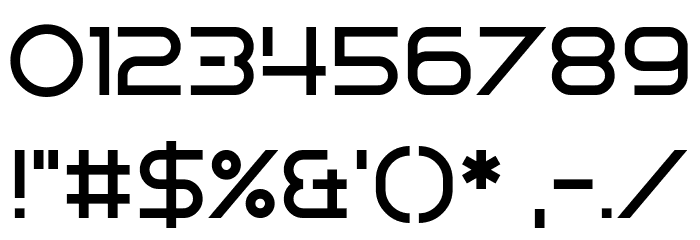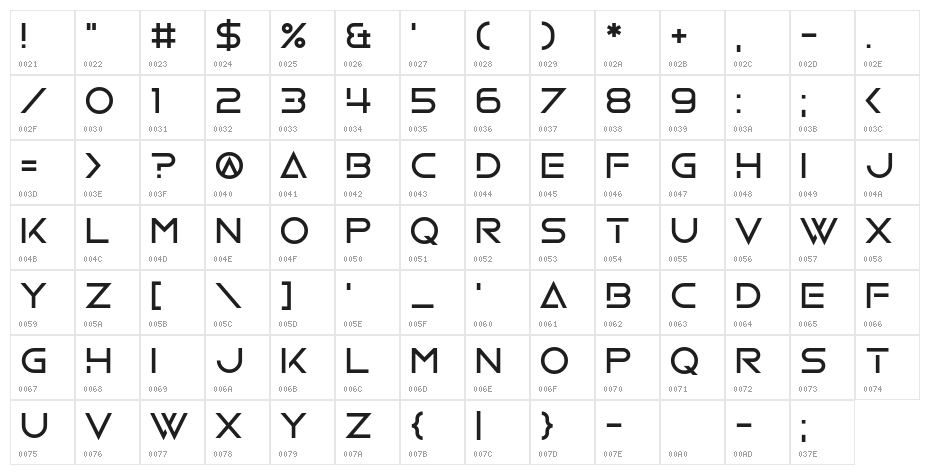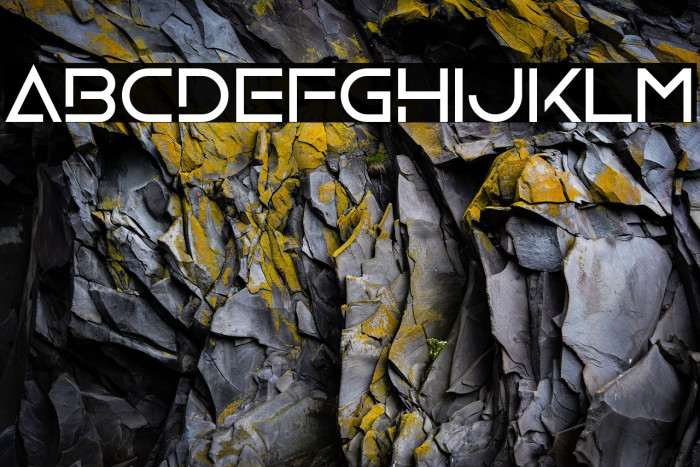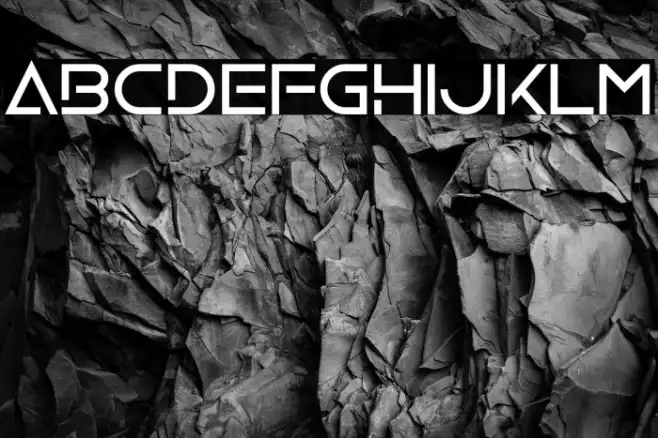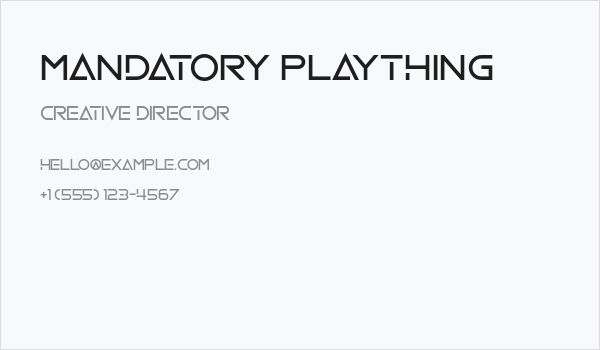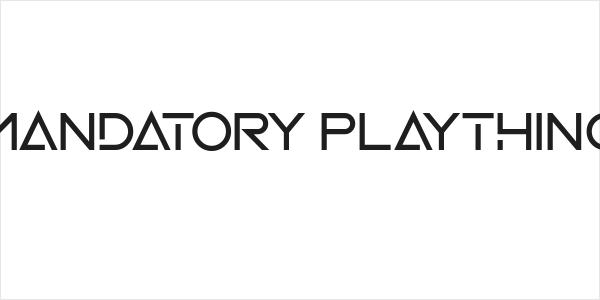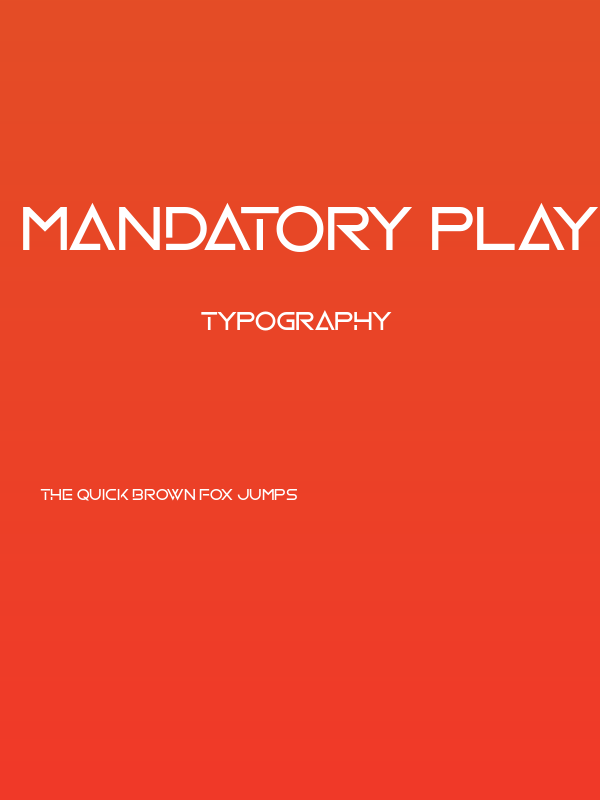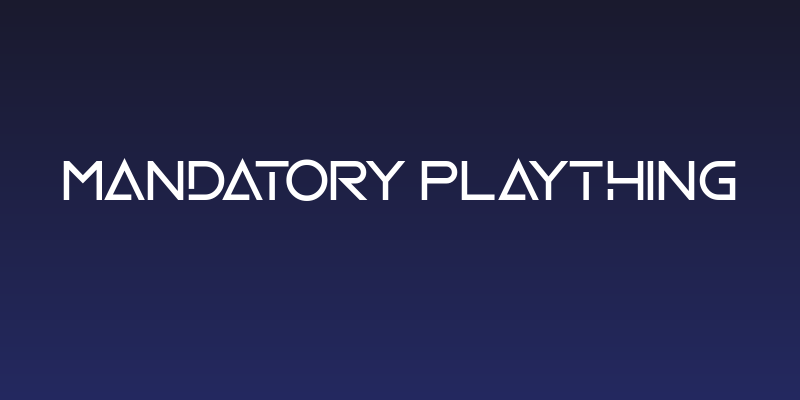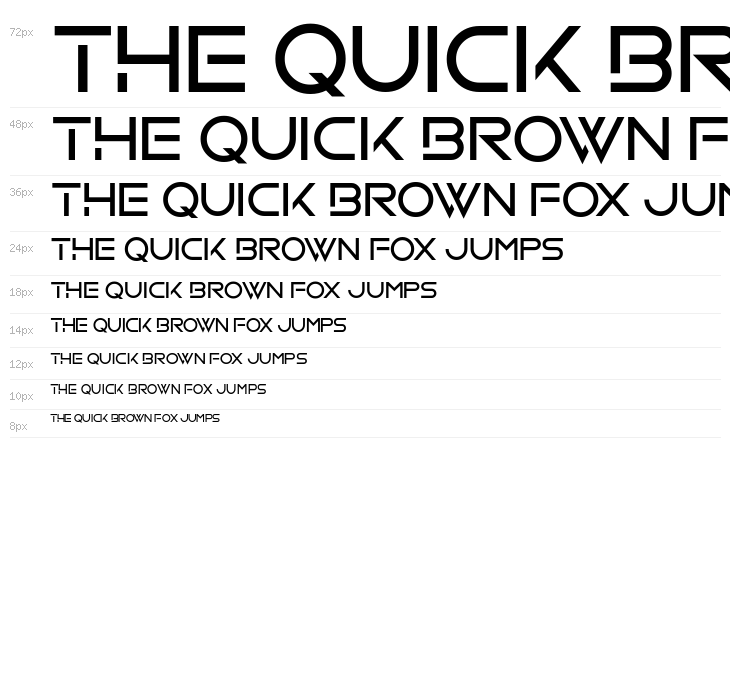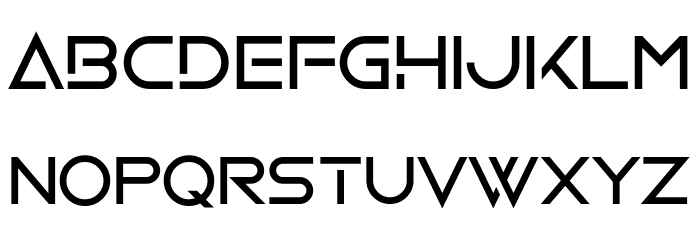
Mandatory Plaything Font
Mandatory Plaything Description
This font features a modern, geometric design with a distinct futuristic appeal. The characters are constructed with clean, straight lines and sharp angles, giving it a sleek and contemporary look. The uppercase letters are bold and commanding, while the lowercase letters maintain the same geometric style, ensuring consistency across the typeface. The numerals are equally bold and follow the same design principles, making them easily legible. Special characters are included, maintaining the overall aesthetic. The font's design is highly versatile, suitable for a range of creative applications.
Overall StyleFuturistic
Use CaseHeadlines, Logos, Digital interfaces
Proposed ProjectsIdeal for technology branding, sci-fi themed projects, modern logos, and digital interfaces.